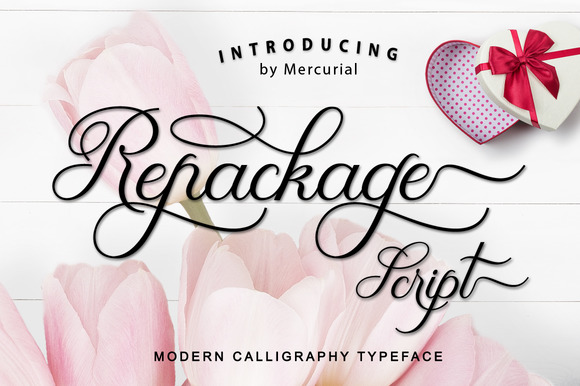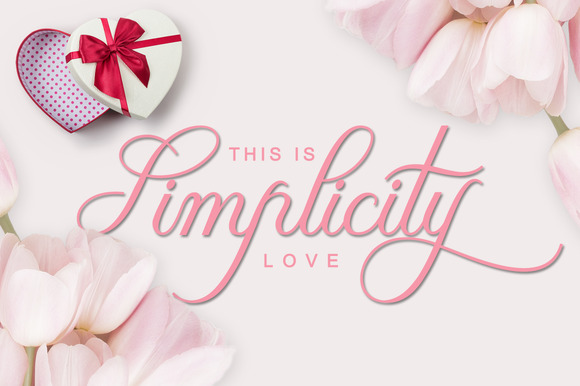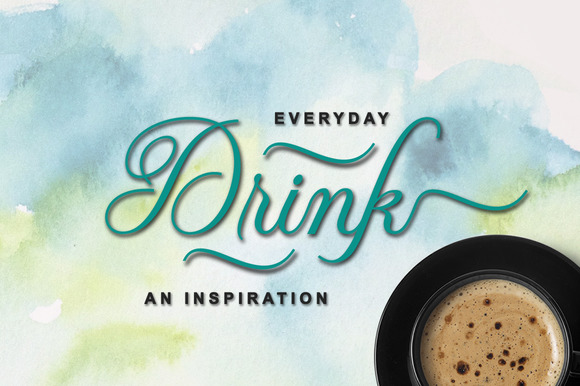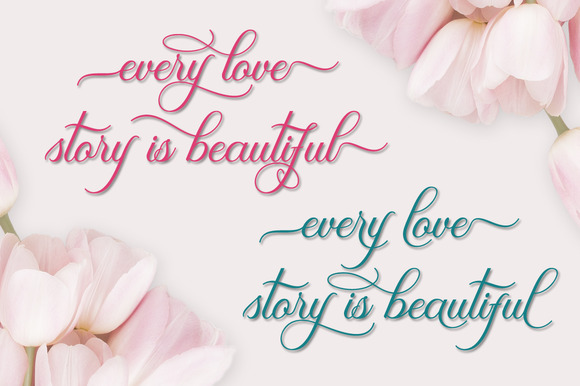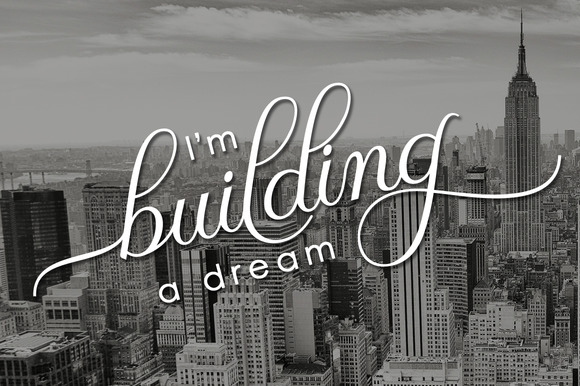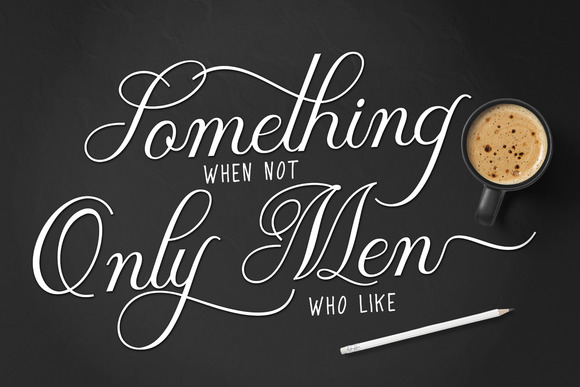
Repackage Script Font
Introducing Repackage Script, a new fresh & modern script with a handmade calligraphy style. a charming typeface and So beautiful on invitation like greeting cards, branding materials, business cards, quotes, posters, and more!
Designer Name: | iTypeface |